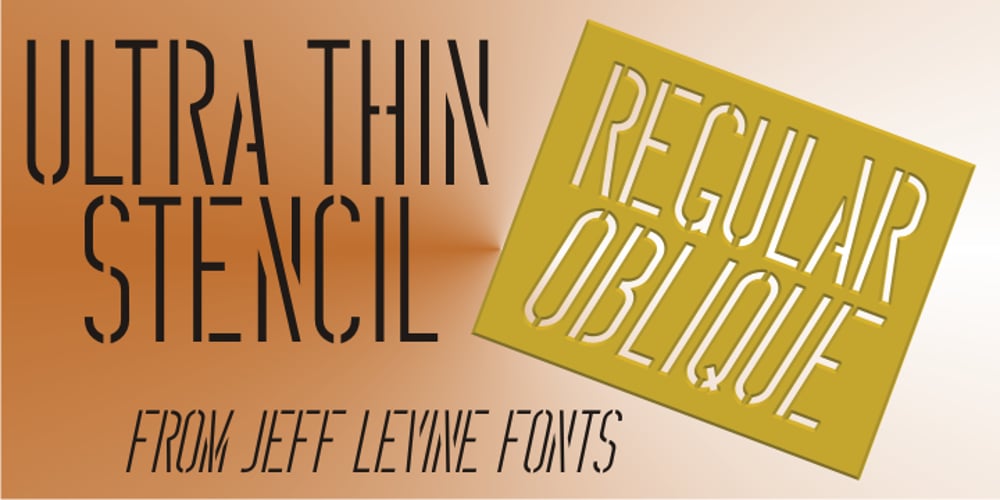
Ultra Thin Stencil JNL
Ultra Thin Stencil JNL font
Ultra Thin Stencil JNL Font Family was designed by Jeff Levine and published by Jeff Levine. Ultra Thin Stencil JNL contains 2 styles and family package options. Online auctions offer a treasure trove of lost or forgotten merchandise, and many items pertaining to lettering just beg to be digitized into a typeface. Case in point is a partial set of brass stencils that were the visual model for Ultra Thin Stencil JNL. While most of the brass interlocking stencils available now and in the past have bold lettering for easy readability, this particular set consisted of condensed letters with thin lines. Available in both regular and oblique versions, they join a long list of stencil designs available from Jeff Levine Fonts.